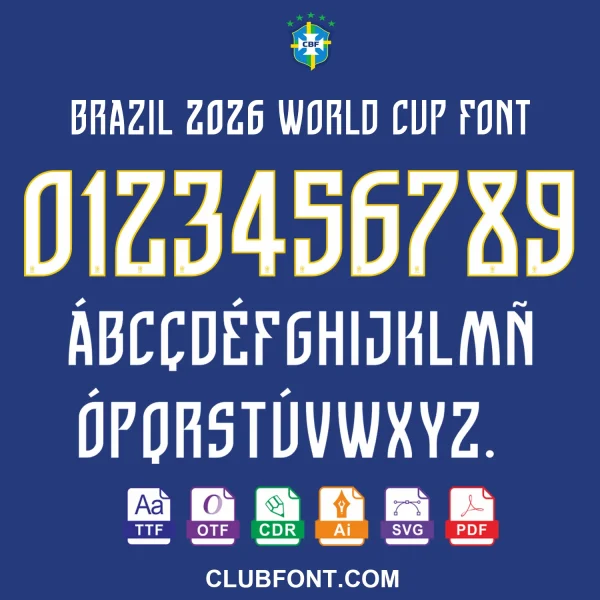
Get the official-style Brazil 2026 World Cup Font Download – the ultimate solution to recreate the iconic typography of the Brazilian national team’s 2026 World Cup jerseys. Every letter, number, and symbol in this pack is meticulously recreated to match the exact design used by the Seleção, including jersey lettering, player numbering, and official tournament branding.
Brazil 2026 World Cup Font: Authentic Jersey Typography for All Projects
This professional font set is built for football fans, graphic designers, custom jersey printers, DIY creators, print-on-demand sellers, and social media content creators. Whether you’re designing custom fan jerseys, making World Cup-themed posters, creating personalized gifts, editing social media graphics, or working on sticker projects, this pack gives you full creative control over the official Brazil 2026 kit style.
- ✅ Complete character set: Full A-Z letters, 0-9 numbers, and special characters.